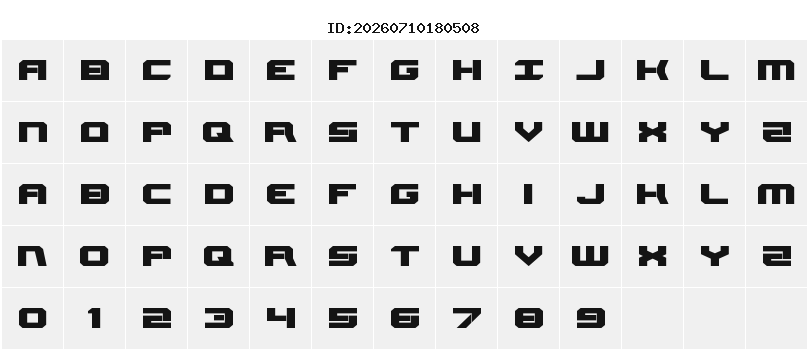
About Gearhead Expanded.ttf
Gearhead Expanded.ttf is a modern, elegant sans-serif font designed for ultimate readability and visual harmony. Perfect for branding, headlines, web design, and print materials.